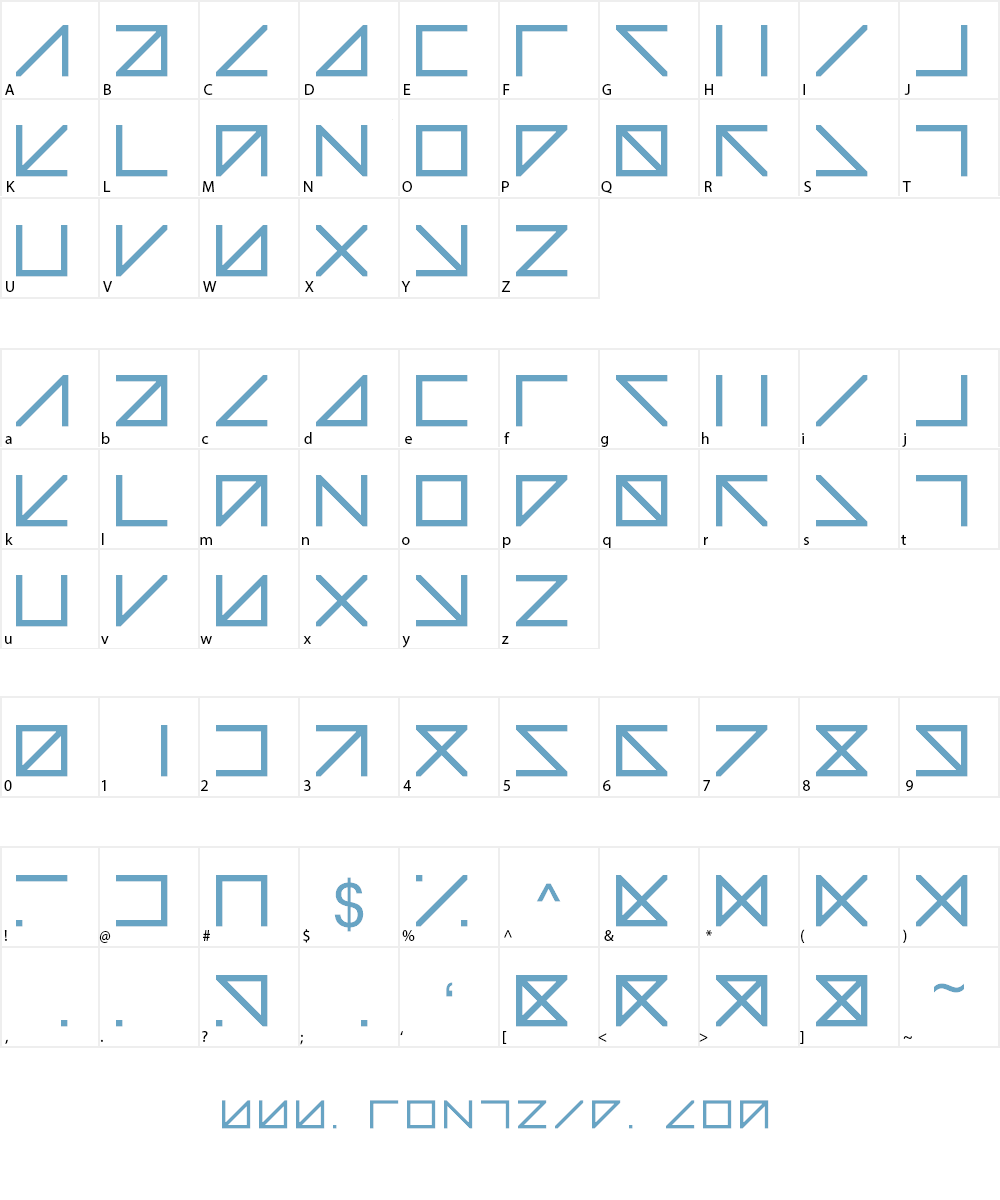
Quadoo is a curveless handwriting for blind people to use this for quick notes. Quadoo can also be used outdoor as a makeshift writing, because only vertical, horizontal and diagonal lines form the characters.